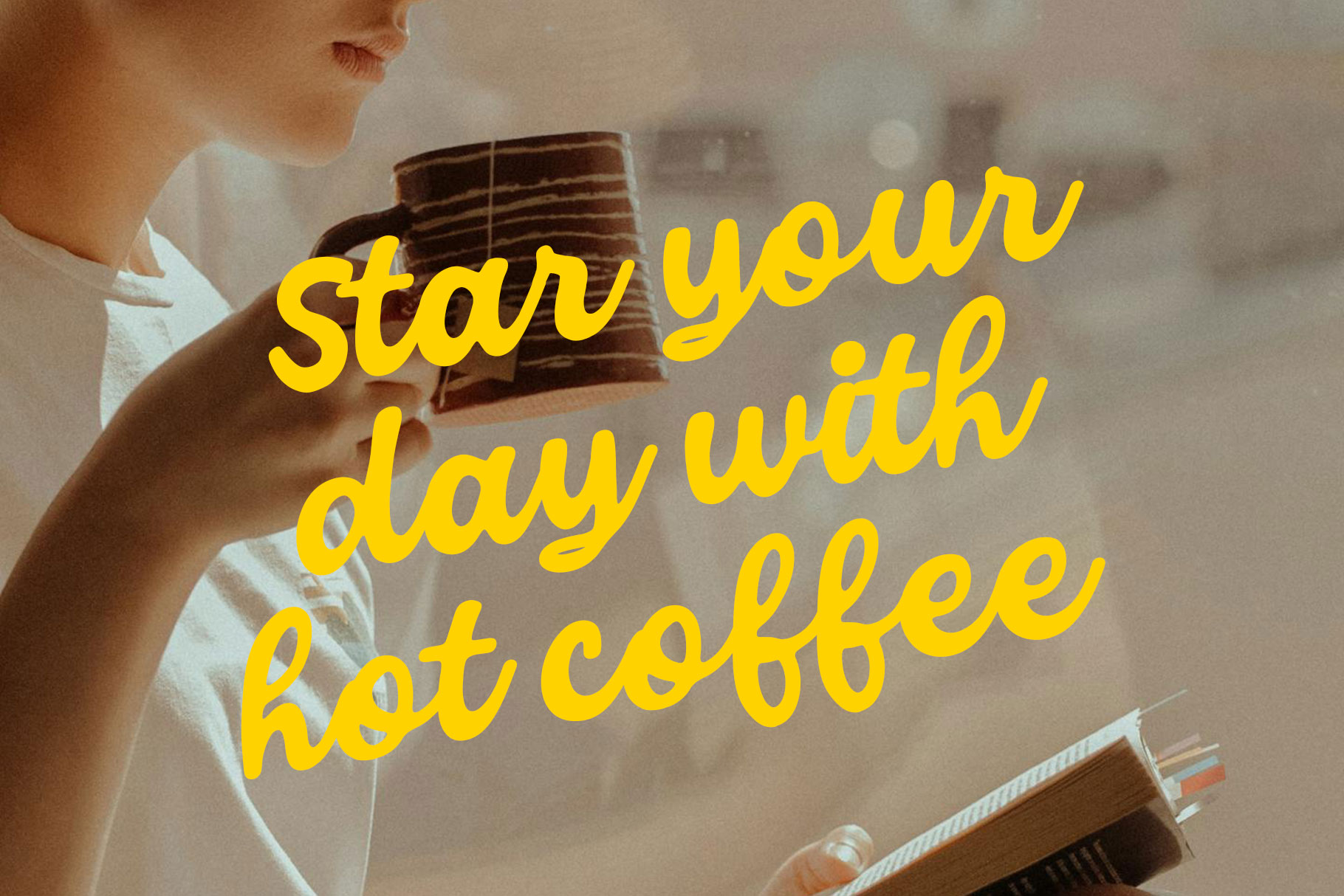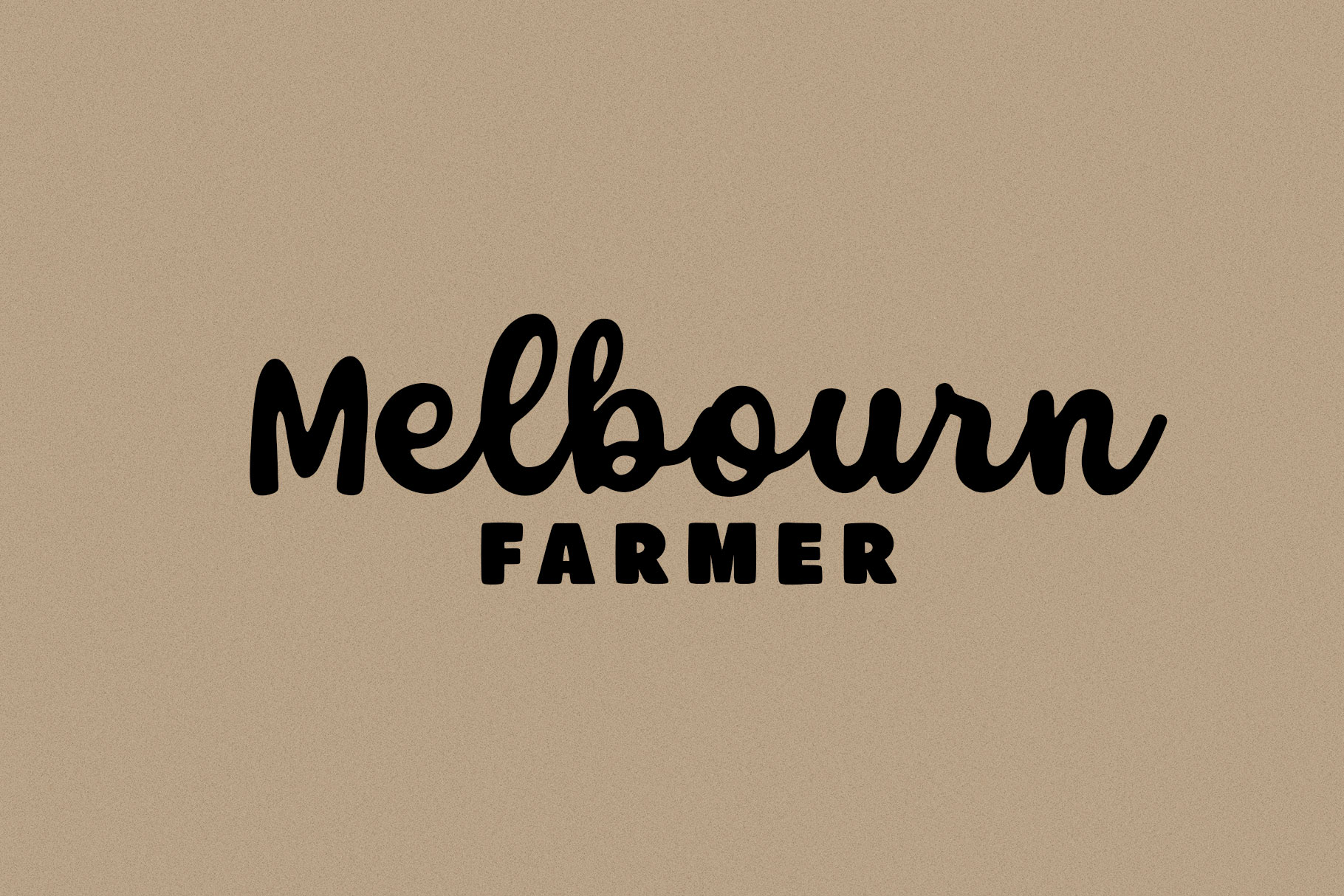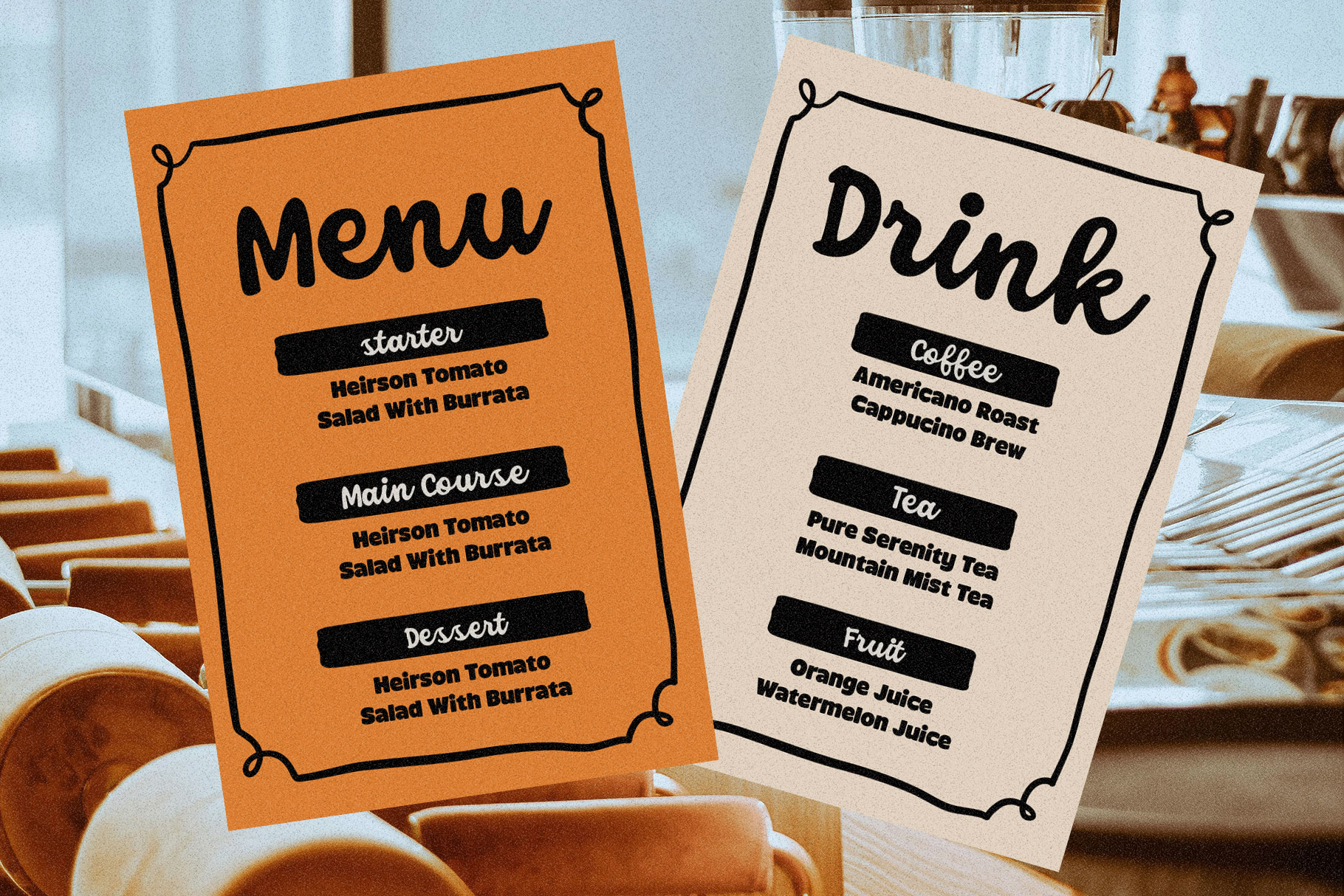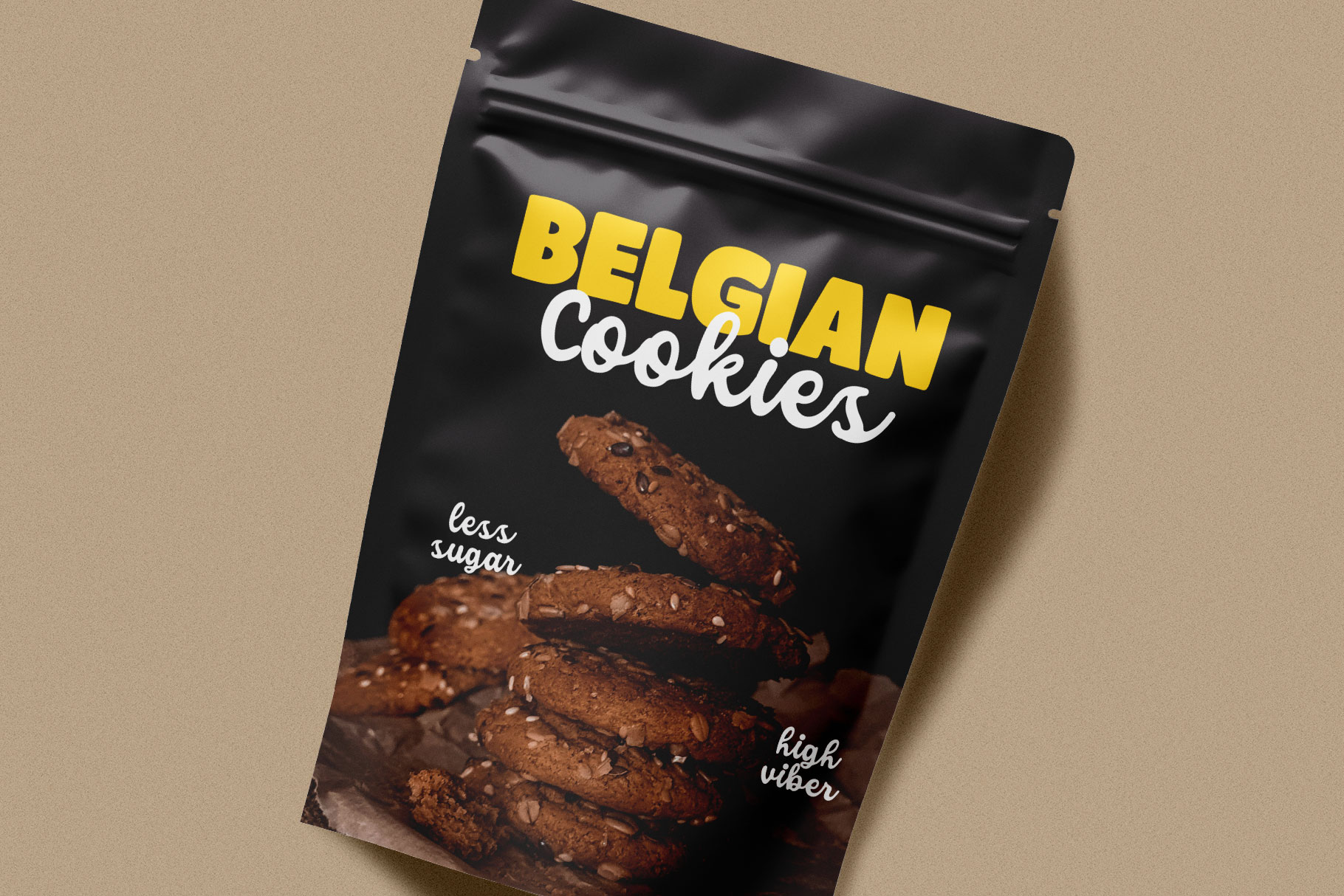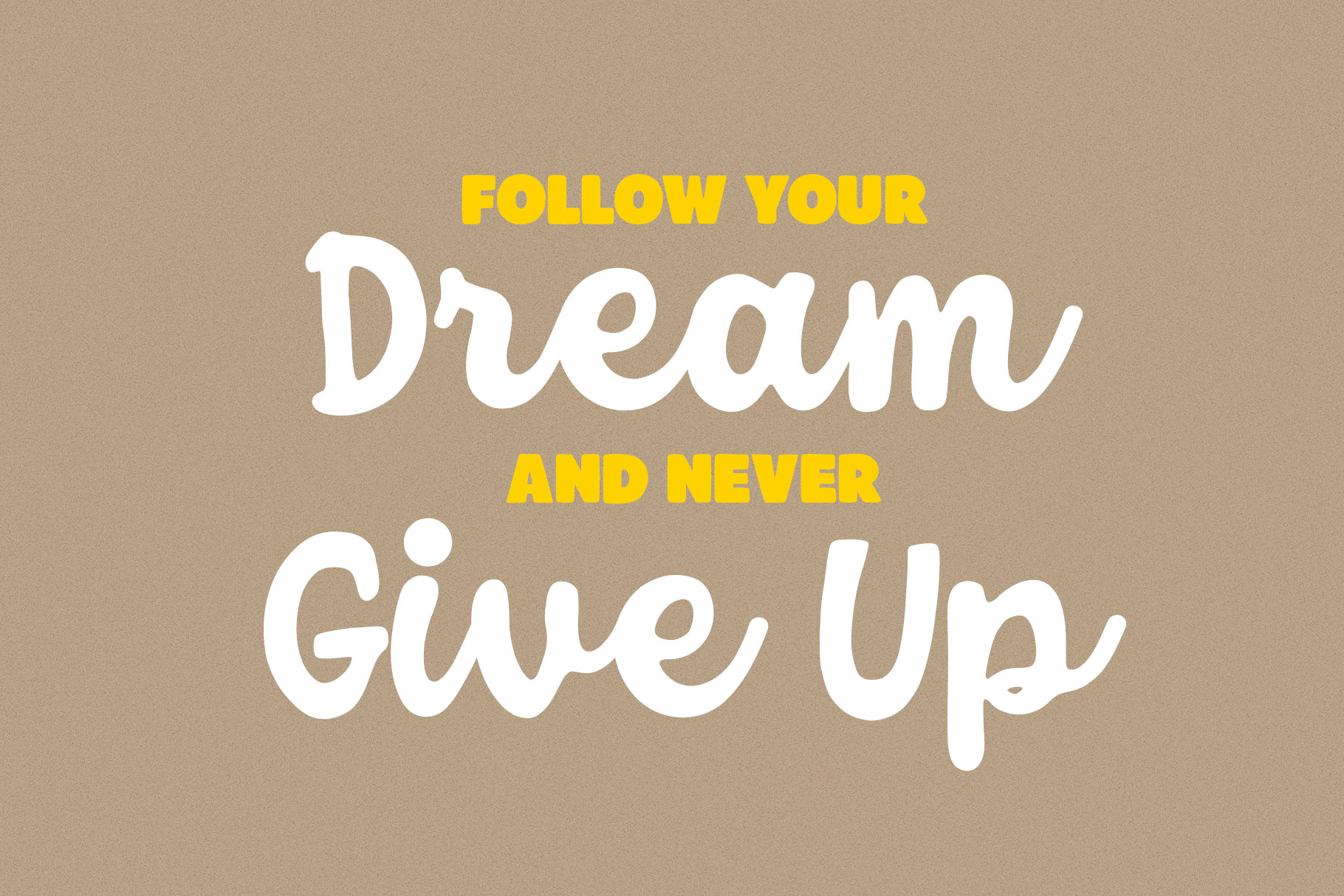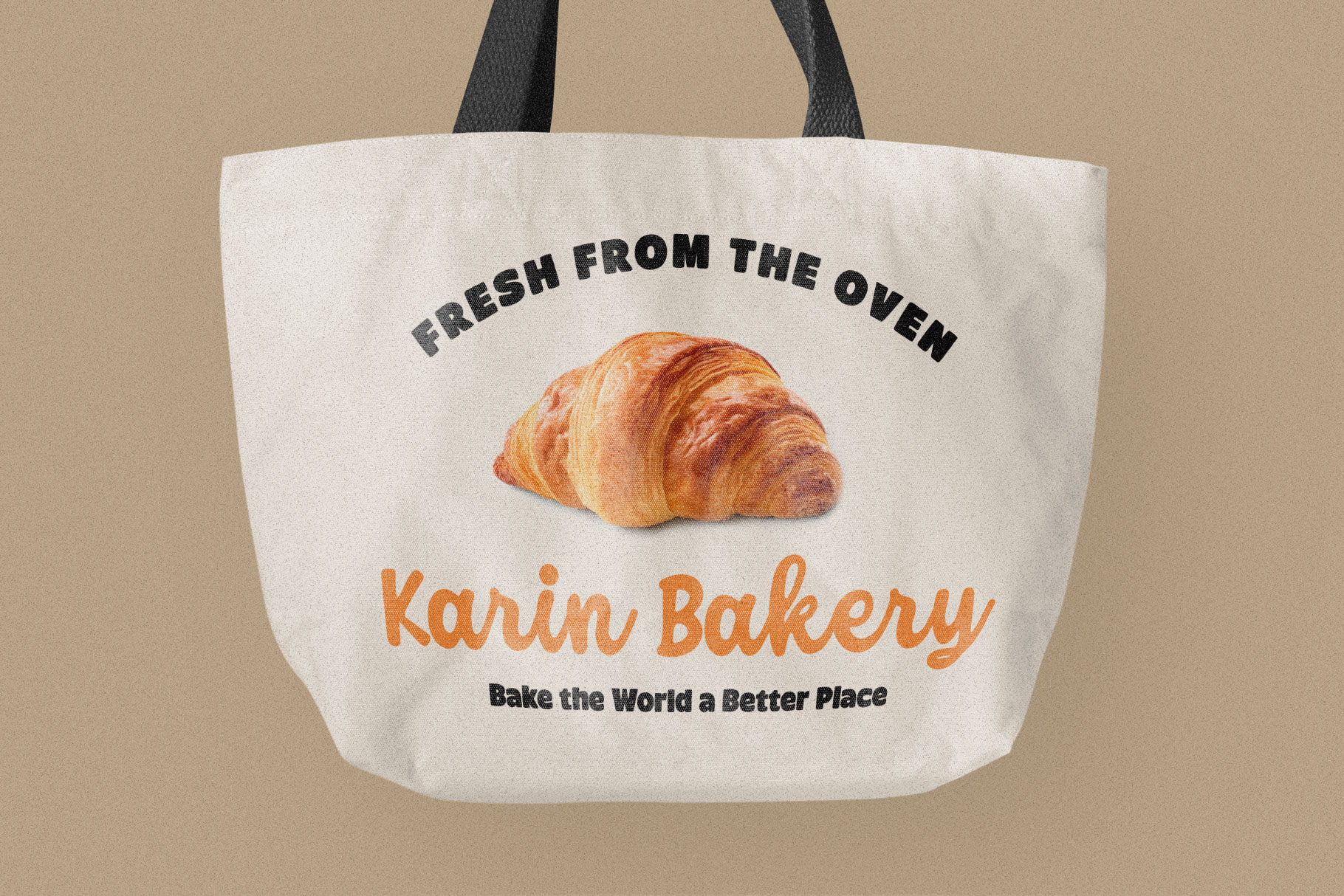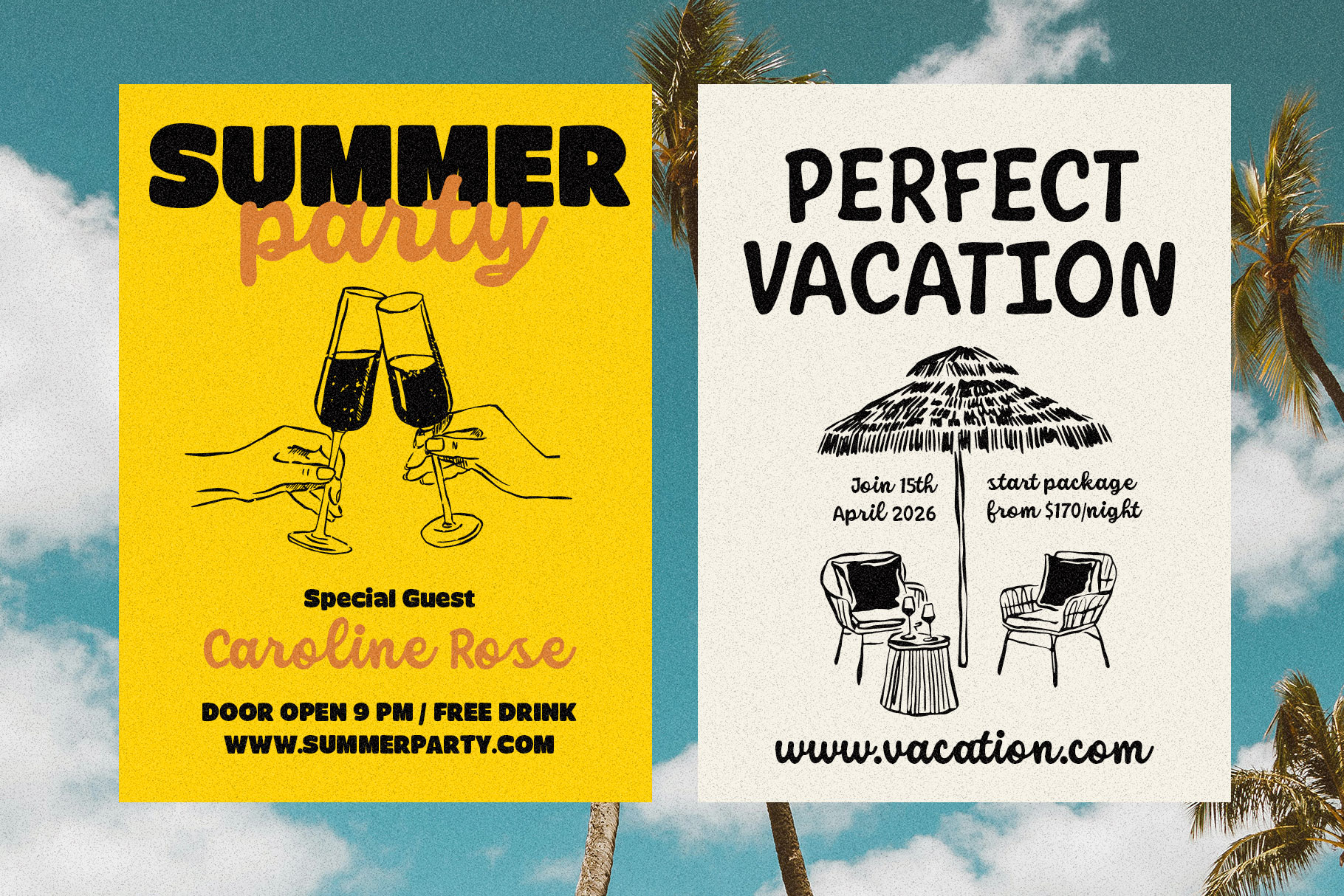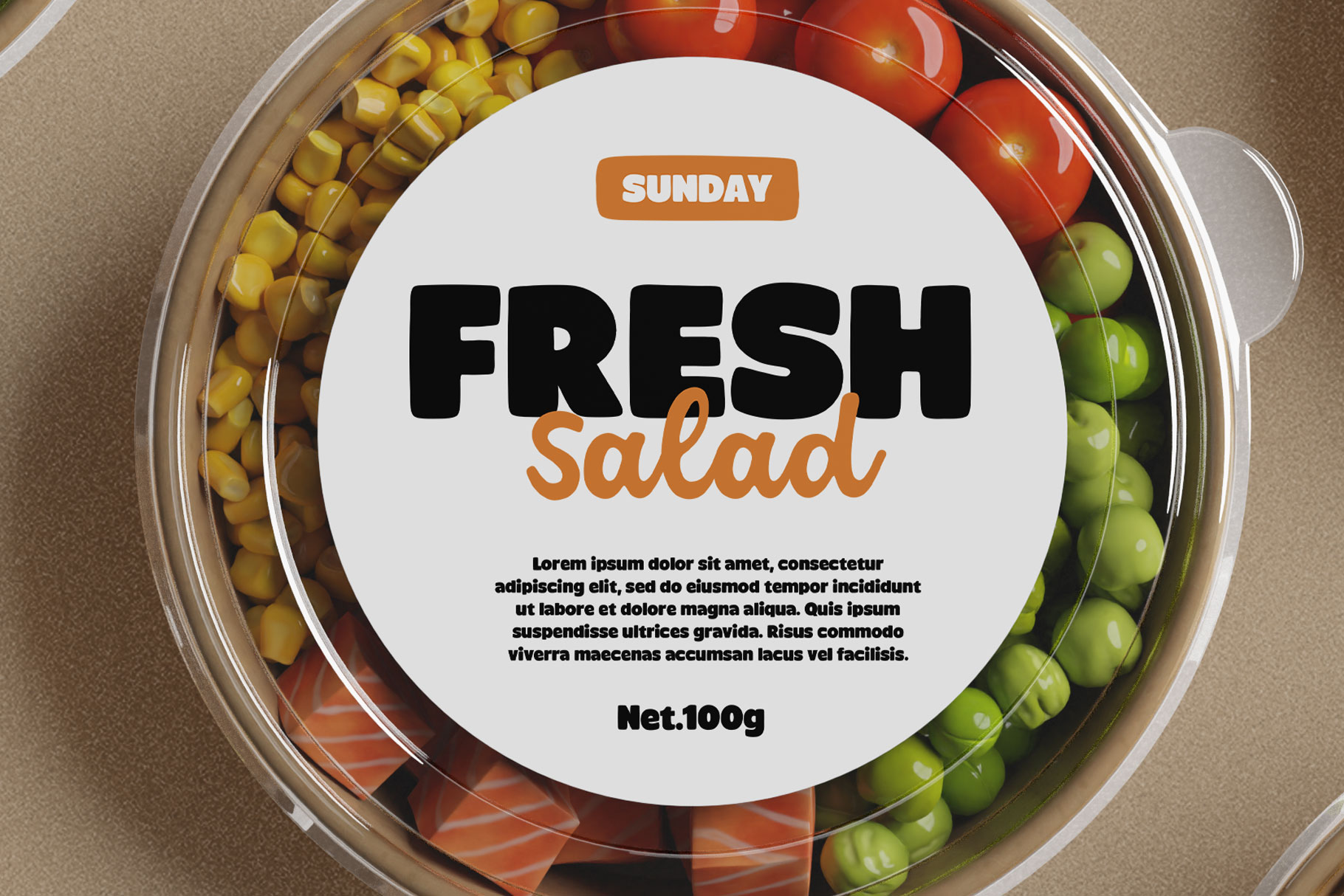
Coastal Beach is blends sans serif and expressive script with bold statements and modern creativity. Coastal Beach is a perfectly choice for any creative endeavor, creating, modern, lifestyle design such as logotype, title, cover, branding, invitations, wedding designs, display and magazine, social media posts, advertisements, printed quotes, product packaging, corporate brand, product designs, labels, photography, watermarks, special events and any other project with fresh touch.